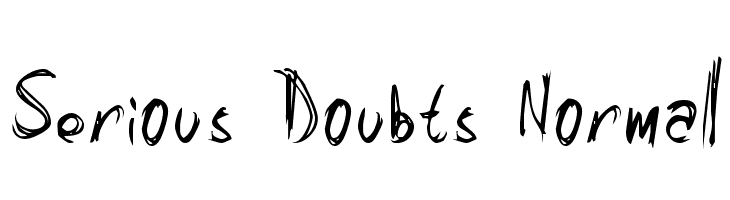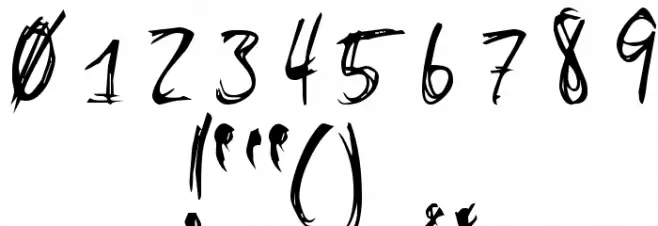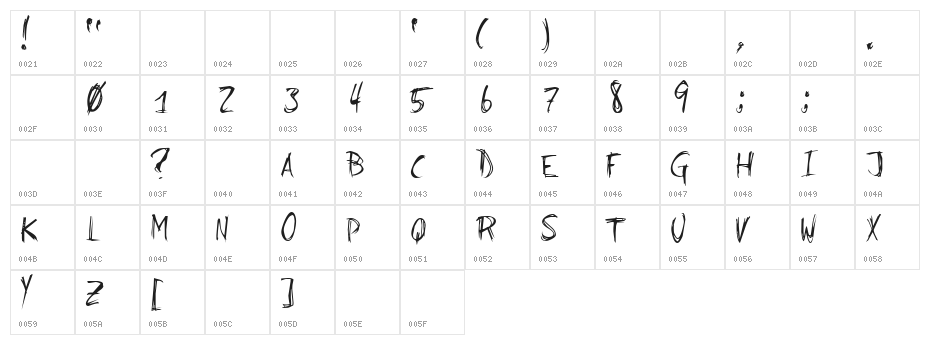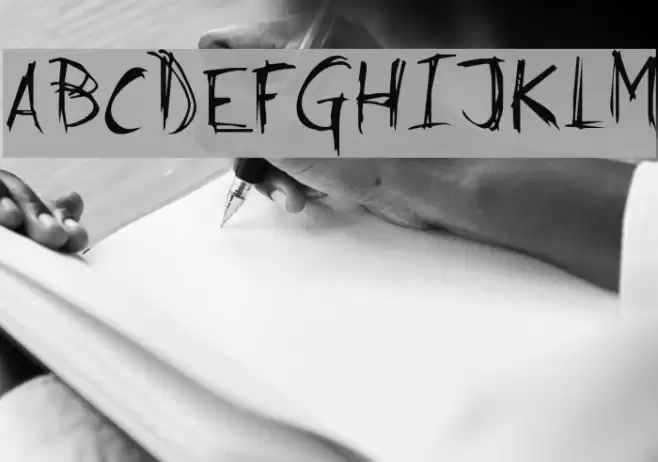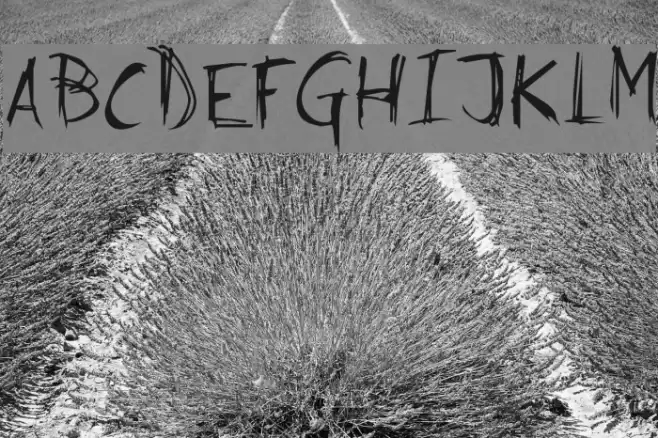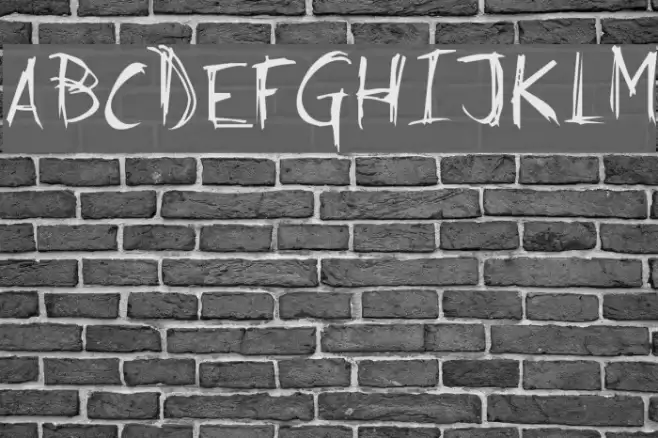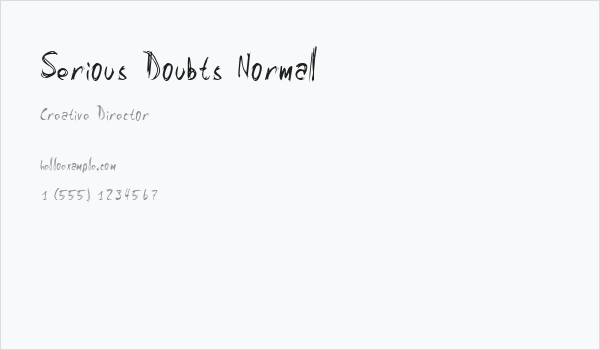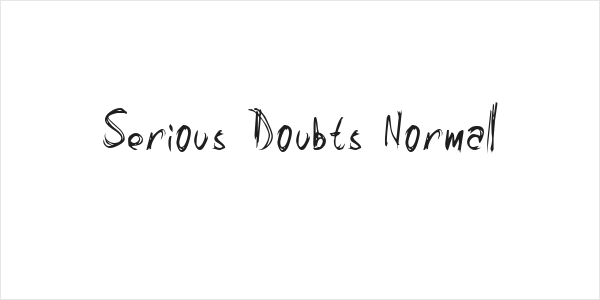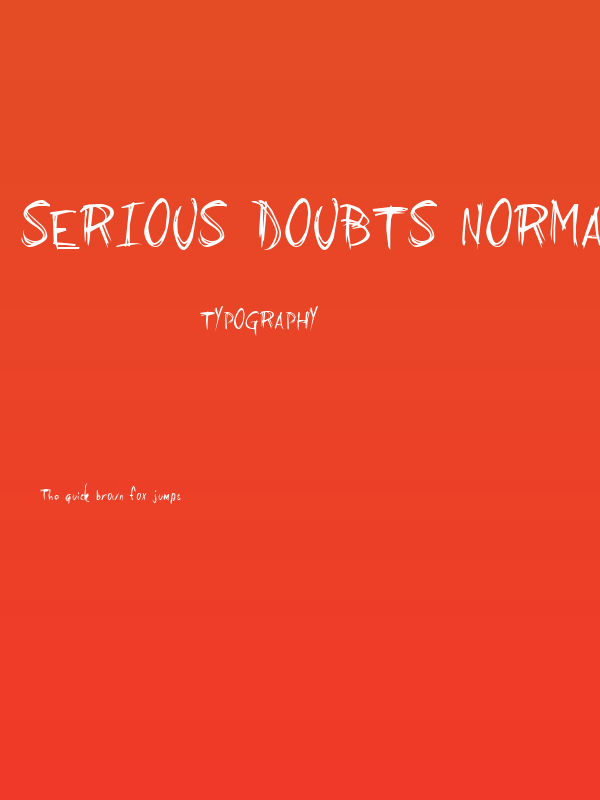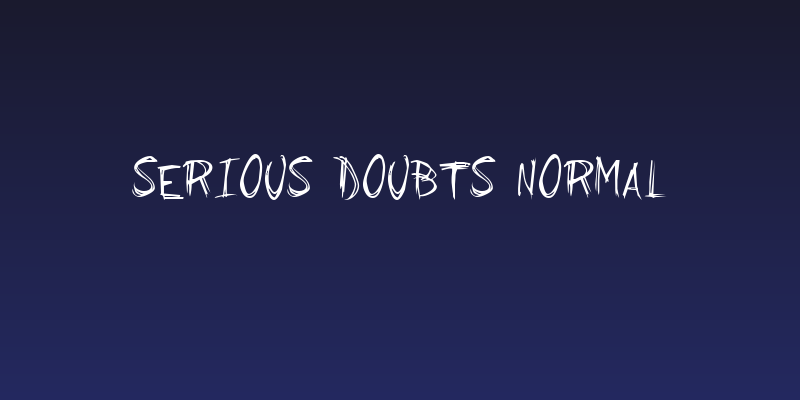
Serious Doubts Normal Font
Serious Doubts Normal Description
This font exhibits a bold and expressive style with a hand-drawn appearance. The characters are irregular and dynamic, featuring sharp, jagged edges and varying stroke widths that give it a chaotic yet artistic feel. The uppercase and lowercase letters maintain a consistent style, with exaggerated curves and angles that create a sense of movement. Numbers and special characters follow the same design principles, ensuring a cohesive look across all glyphs. The font's unique and edgy aesthetic makes it stand out, ideal for projects that require a strong visual impact.
| Proposed Projects | Ideal for album covers, posters, graffiti art, and edgy branding projects. |